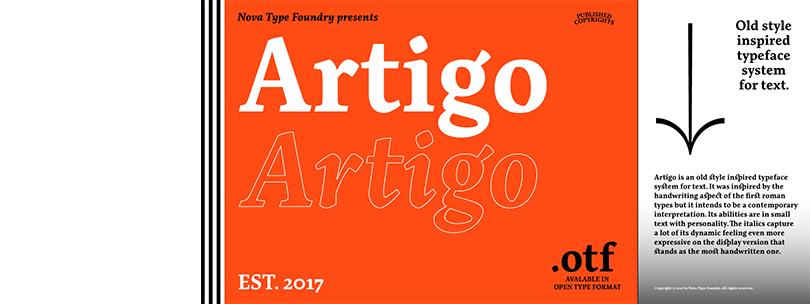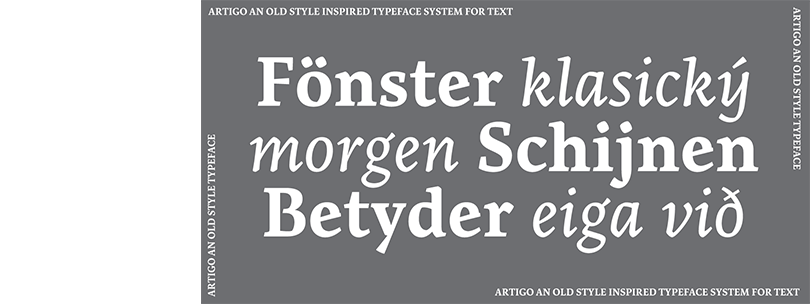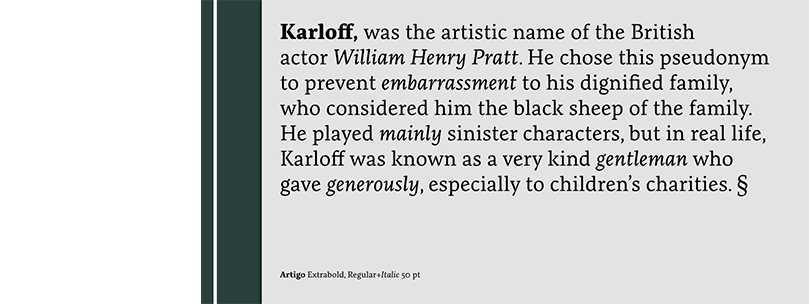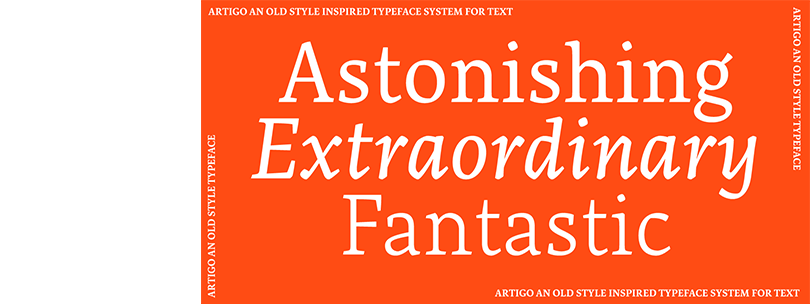
Embracing growth: notes on releasing your first font.
We need to fail often to create something people will care about.
Designing your first typeface is a great challenge, but continuing to evolve past it is a moment of freedom and growth. It’s easy to get attached to your first shapes; the first time you see them in text, it’s exhilarating. Having spent over a decade in the industry, I’m excited to take you on a deep dive into my journey, reflect on those early days, and share lessons I’ve learned along the way.
Discovering Type Design
I love drawing and expressing myself through painting and drawing. This path led to architecture, which has influenced my work as a type designer by paying attention to detail and respecting typography history. Typography and type design weren’t my initial pursuits; architecture was my first study. However, my passion for the arts and attention to detail drew me toward type design.
After working briefly as an architect, I returned to school to study graphic design and typography at Escola Superior Artes e Design of Matosinhos in Portugal. I had a revelation when I attended classes by Dino dos Santos on typeface design. I fell in love with it and tried to learn all I could for the next two years before applying to Reading, UK, to study type design. I managed to get into the course, and it was a joyful moment when I received the acceptance letter.
Publishing My First Typeface
My first typeface, Artigo, was designed in Reading and was a labor of love that took years to complete. It was a learning process to design it. It was an iterative process that included mentorship and feedback to get it to a moment ready to be released to the world. Despite the strength of its design concept, I grappled with a persistent sense of incompleteness. Balancing the demands of commissioned work and teaching added complexity, making it challenging to find dedicated time for this personal project. The process helped me fight perfectionism’s goal and replace it with feeling good enough.
The release of Artigo marked a significant milestone, albeit one tempered by uncertainty. In an industry characterized by perfectionism, I wrestled with the notion that my creation might never meet the elusive standard of flawlessness. However, through iterative refinement and unwavering determination, I learned to embrace its imperfections as part of its unique character. Gradually, Artigo evolved into a testament to resilience and growth, a tangible representation of my journey as a designer.
However, with time and mentorship, I overcame my insecurities and fear of judgment, eventually releasing Artigo and working on the following projects like Quando with newfound confidence.
After graduation in 2010, I got my first gig designing a Google Font. Quando was my first font from scratch and outside of the academic world. I created it with the mentorship of Eben Sorkin, a fantastic type designer. This typeface took almost six months to get one weight done! I learned that resilience and patience were crucial in embracing the design process of a typeface in the first years of my career.
Overcoming Insecurity and Perfectionism in the Industry
My insecurity and fear of being judged by my peers kept me from publishing my first typeface earlier. I felt like an imposter and waited too long to share, Artigo. Time and experience helped me overcome this feeling, and repeating the process of designing a font became my journey to a more relaxed approach to the work. Also, getting positive feedback on my earlier typefaces kept me going for the next one, and I continue to be curious and design new shapes.
I first published my typeface around 2015, so it took around four years to gain the confidence and security that good enough is good enough. Perfectionism had the consequence of keeping the typeface too long in the drawer instead of sharing it. There was a risk that it could become dated and irrelevant.
A few years later, with more practice, I found ways to overcome this block, and at the same time, slowly, the industry changed.
One thing that helped to overcome my insecurities was looking into the 2000s and what happened with the now-established type of designers advocating for perfection. They created digital fonts in the 2000s, using experimental, ugly, grid, and other fonts. They used the MyFonts platform to test different ideas and see what clients were interested in. They used it as their playground, which inspired me to move in a different direction.
Exploring new ideas more quickly has become a regular part of the industry, and many type foundries now have lab/experimental fonts to play with shapes and explore creativity beyond commercial fonts.
Making Room to Play with Changing Technology
I started to think that done is better than perfect and tried out releasing unfinished fonts. This process helped me avoid the creator’s block and feel free to play with type, making the process lighter and more fun. For my latest experiment, Baga, a script fluid typeface, I started to think of what I would like to see in tasty cookie packaging. I created one weight only to test the idea. I enjoy experimenting with new concepts quickly and seeing how they will grow.